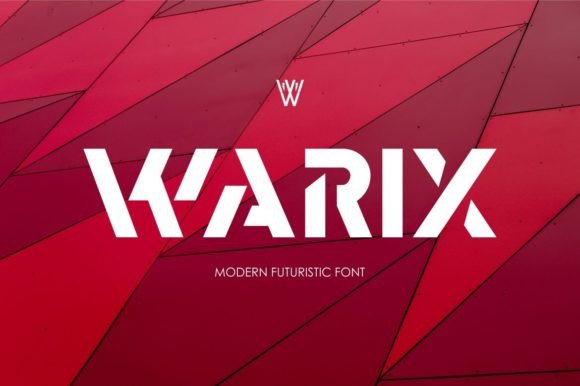
Introducing Warix Font, the epitome of futuristic elegance and technological advancement. Created by Whymore, this font embodies themes of cyberpunk, sharpness, and decoration, all in a minimalist form that exudes splendor.
With its sleek and innovative design, Warix Font is a captivating choice for designers, creators, and font enthusiasts alike. It invites you to dive into the future, where possibilities are endless and imagination knows no bounds.
Warix Font draws inspiration from the elegance found in every intricate shape, making it a perfect companion for those seeking modernity and sophistication. Its versatility allows it to seamlessly complement various projects, including laser cutting, enhancing the overall visual appeal.
Immerse yourself in a world of modern fonts, as Warix Font seamlessly blends elements of sci-fi, galaxy, and futuristic elegance. Its clean lines and unique aesthetics make it ideal for creating captivating designs that stand out from the crowd.
Unleash your artistic prowess and elevate your designs with the renowned Warix Font. Let its captivating allure and future-forward essence transport you to a realm of endless possibilities. Whether you're designing for personal projects, branding, or advertising, this font will undoubtedly leave a lasting impression on your audience.